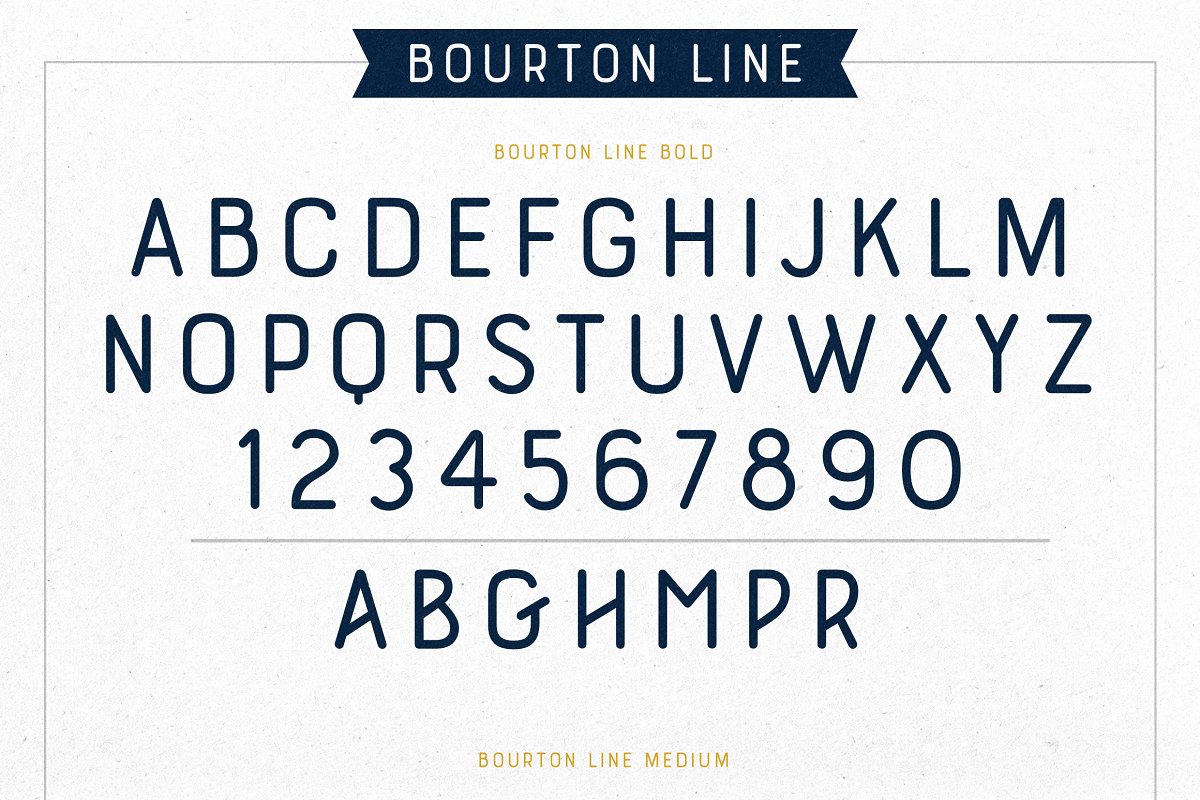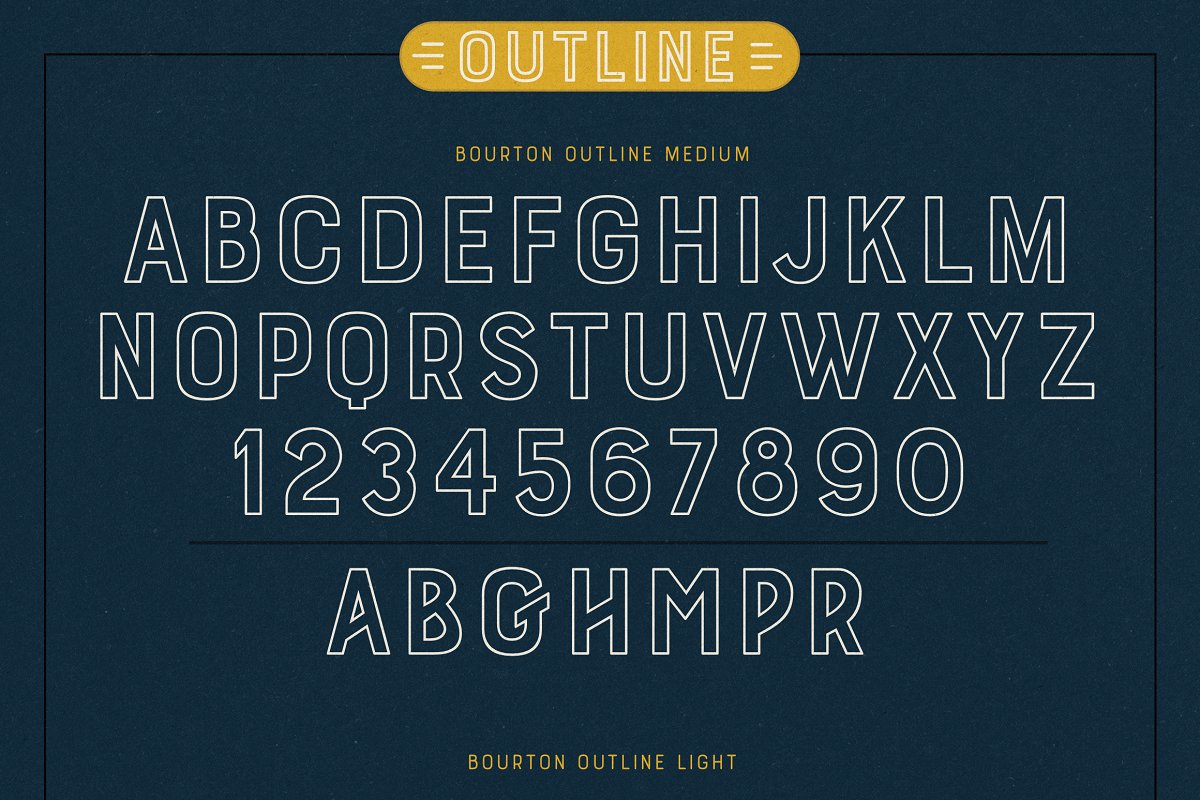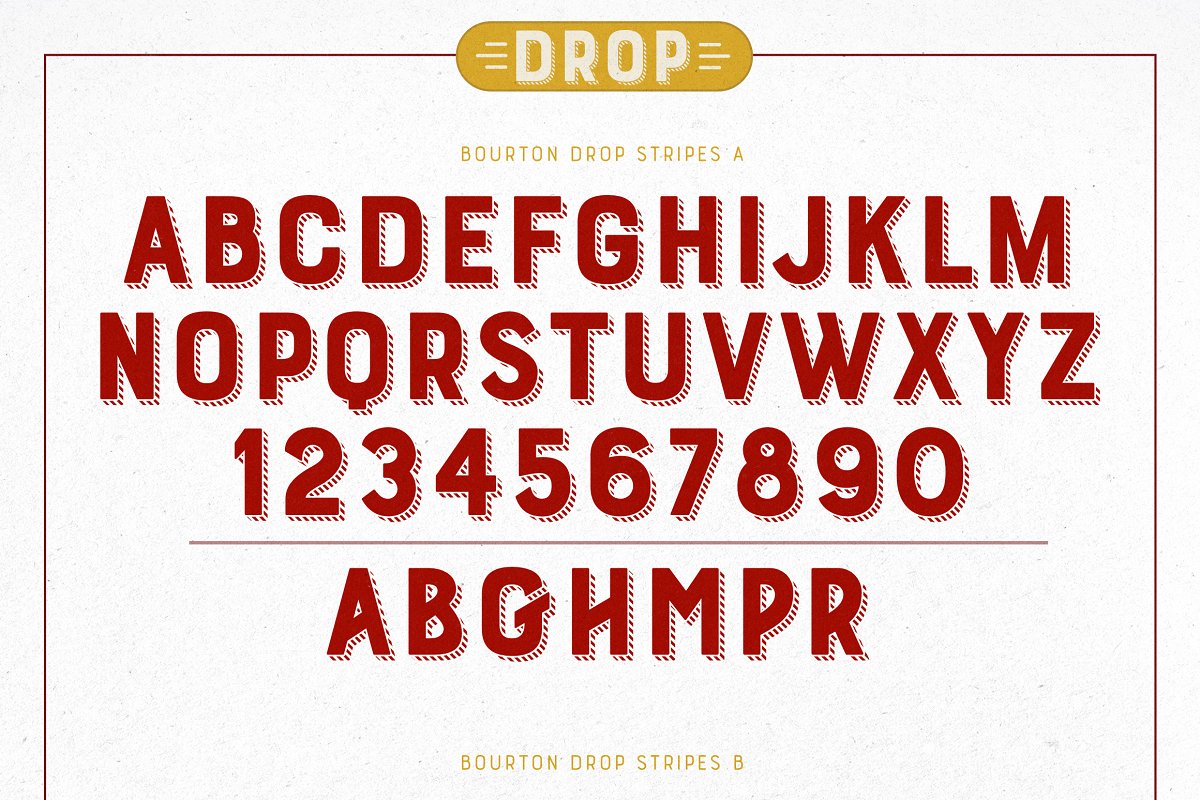
About the Bourton Basic Pack Font
Bourton is a new typeface by Kimmy Design, It’s the sans-serif cousin to Buford: https://creativemarket, com/KimmyDesign/153899-Burford-Pro-PackThis basic family is a simplified version of the extended type family, It can be used in any program, and omits the fonts that require advanced editing applications, Here’s everything you get with Bourton Basic!Bourton FontsBourton BaseBourton InlineBourton MarqueeBourton DotsBourton Strips (A, B and C styles)Bourton Outline (Light, Medium and Bold)Bourton Line (Light Medium and Bold)Bourton Drop (Shadow, Line, Extrude, Stripes A and B) Bourton ScriptLightBold Bourton ExtrasOrnaments, banners, frames, borders, flags and line break (OTF, EPS, AI with User Guide for OTS)Flourishes (OTF, EPS, AI with User Guide for OTS)Languages for Bourton are Latin and Latin Extended